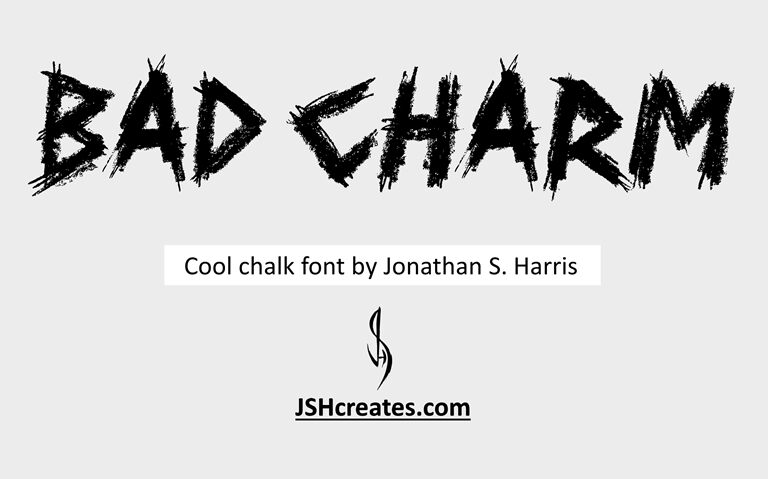
Bad Charm is a bold display font designed by Jonathan S Harris. Its scary style makes it perfect for horror movie posters, Halloween decorations, and other spooky projects. Its bold weight adds an extra level of intensity to any project.